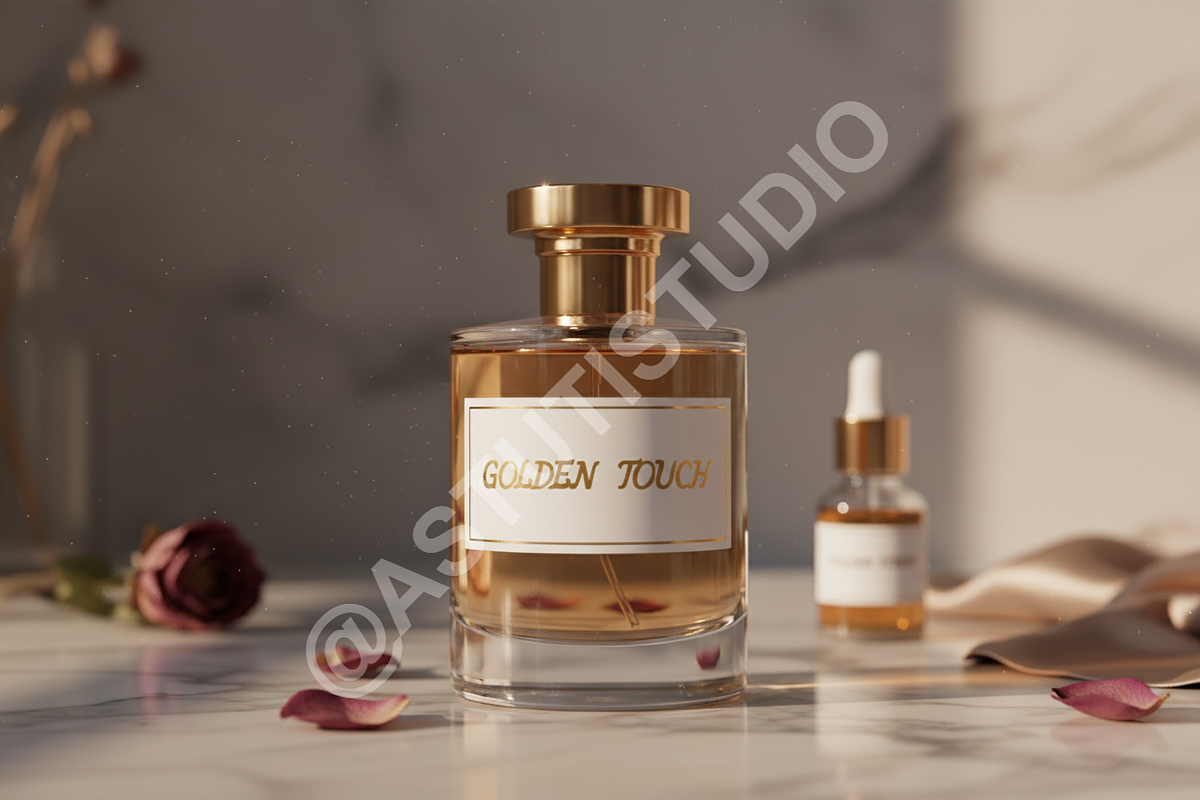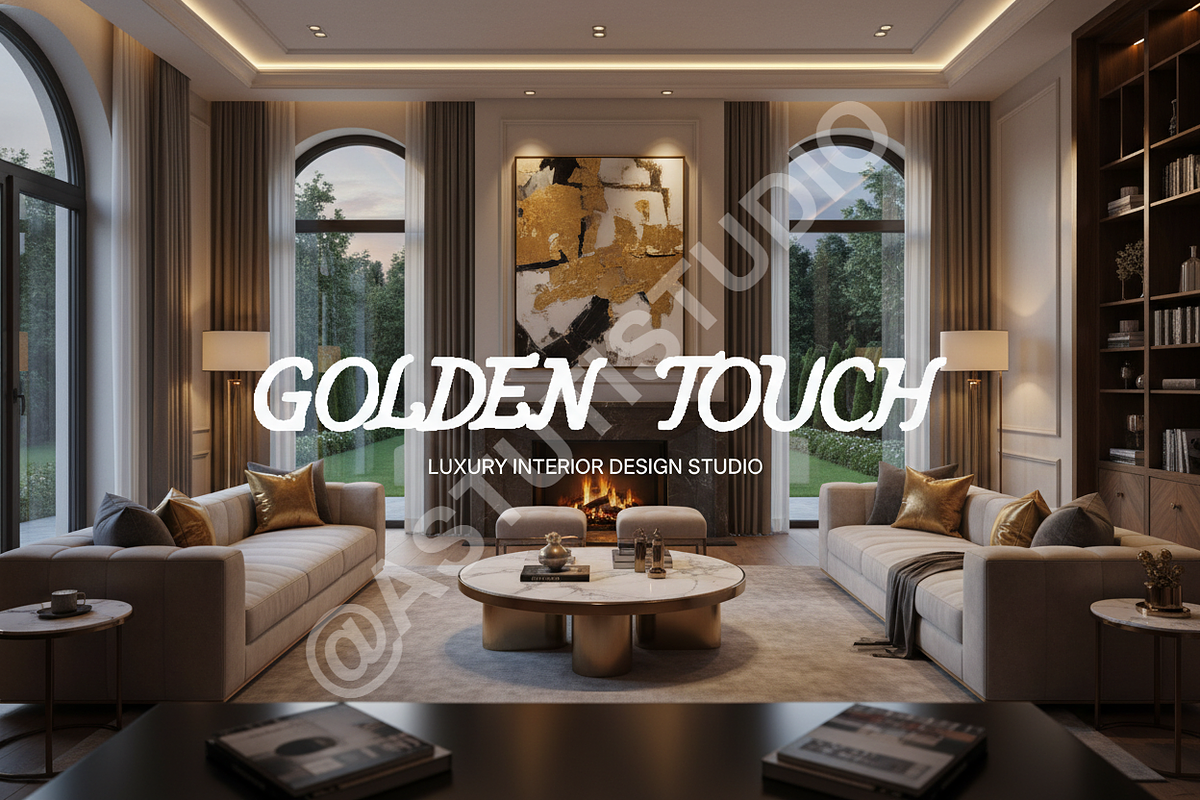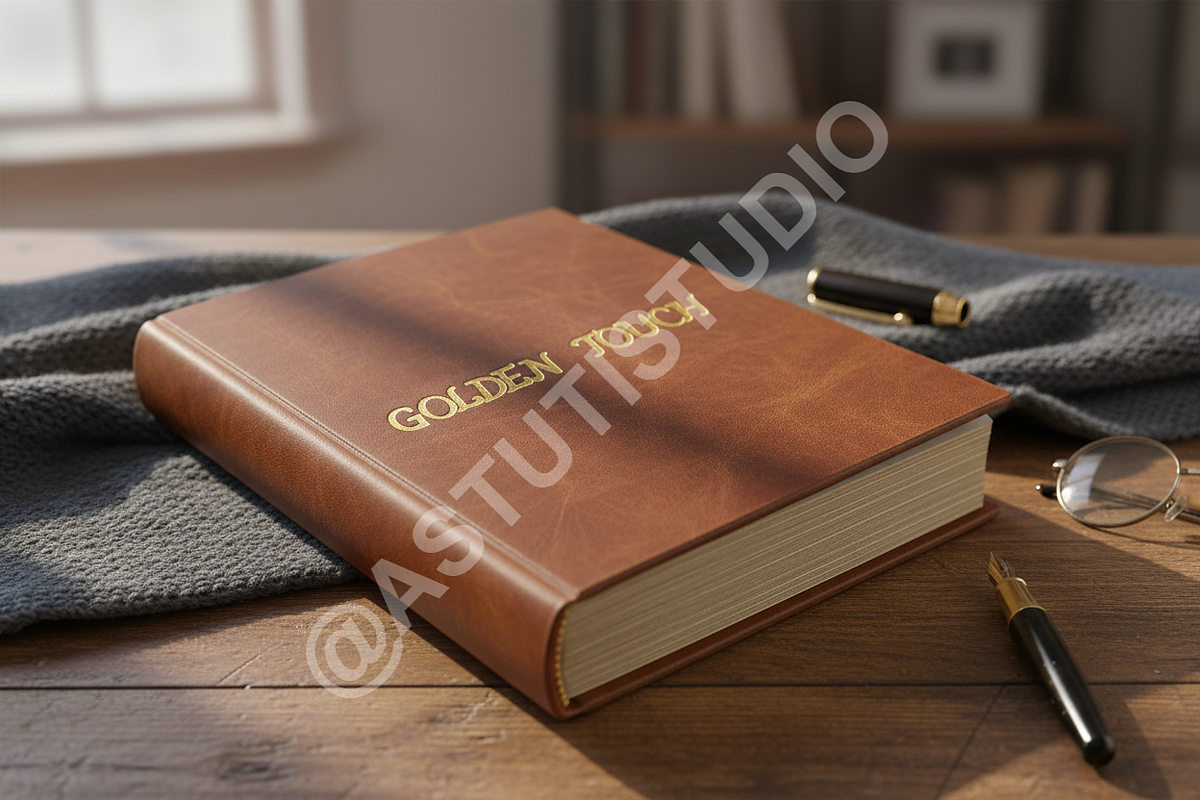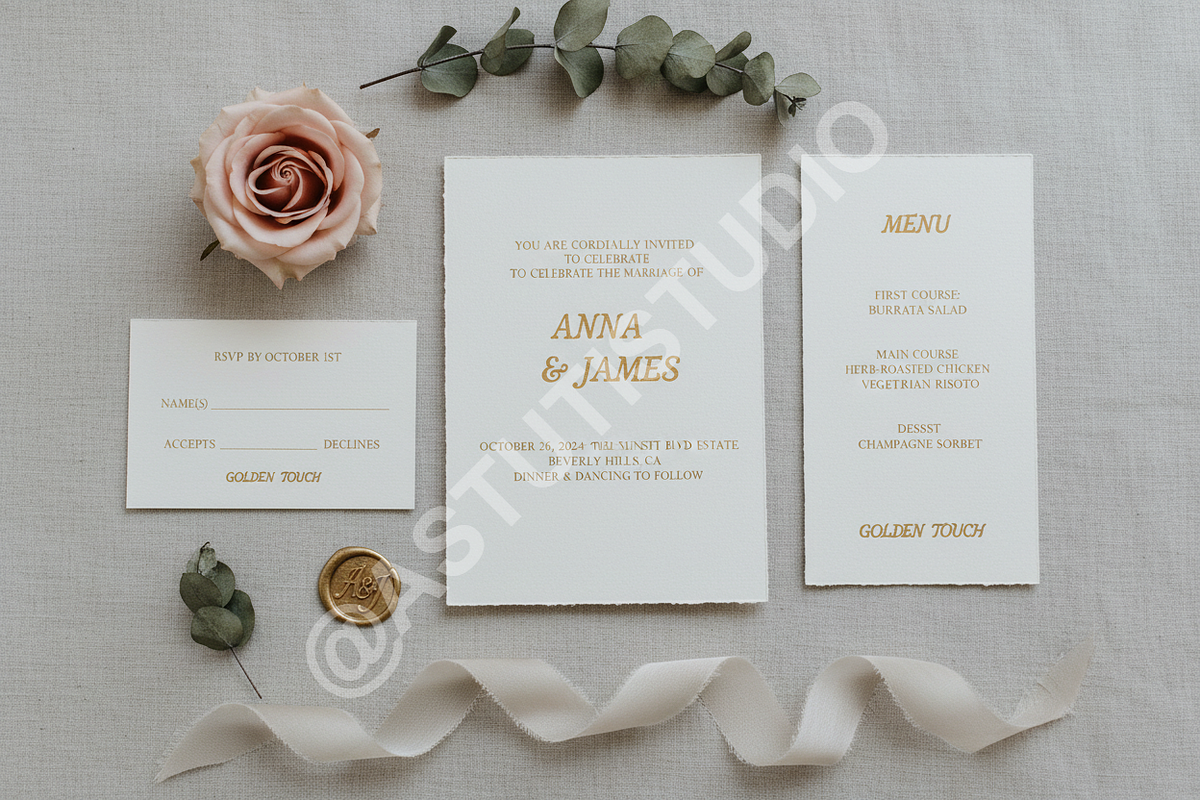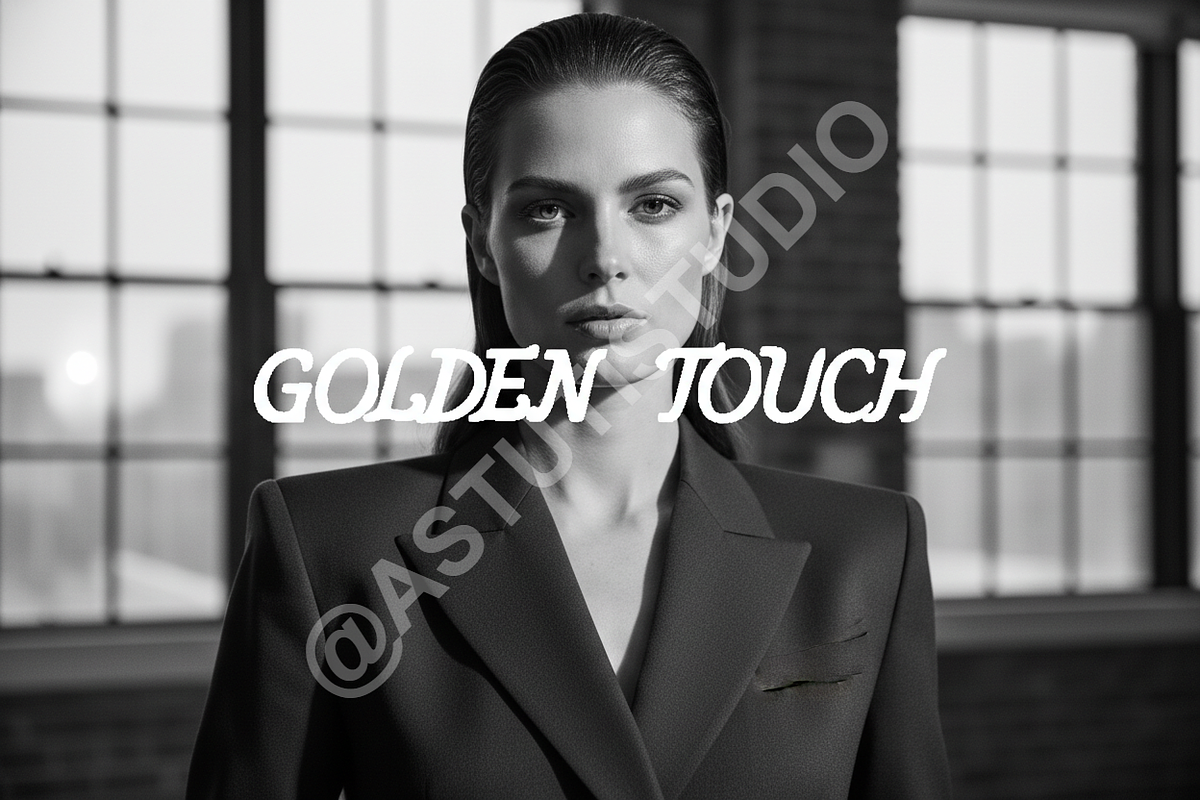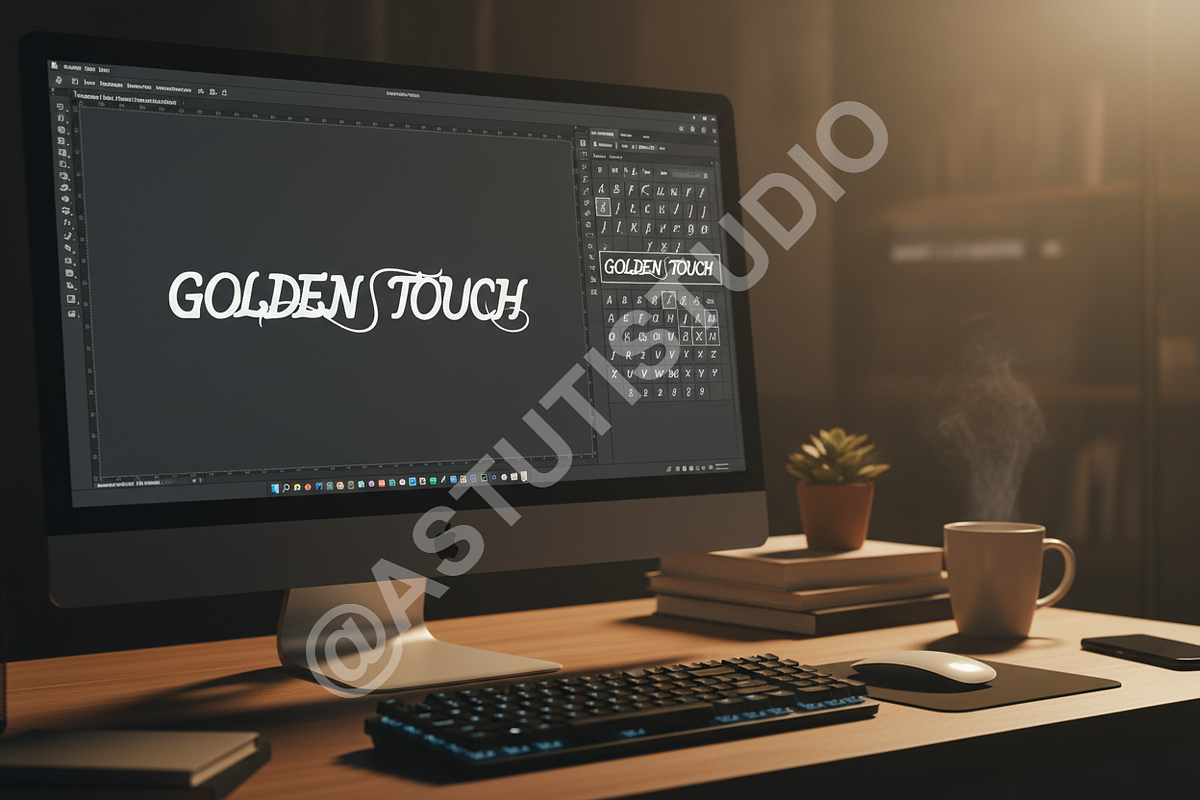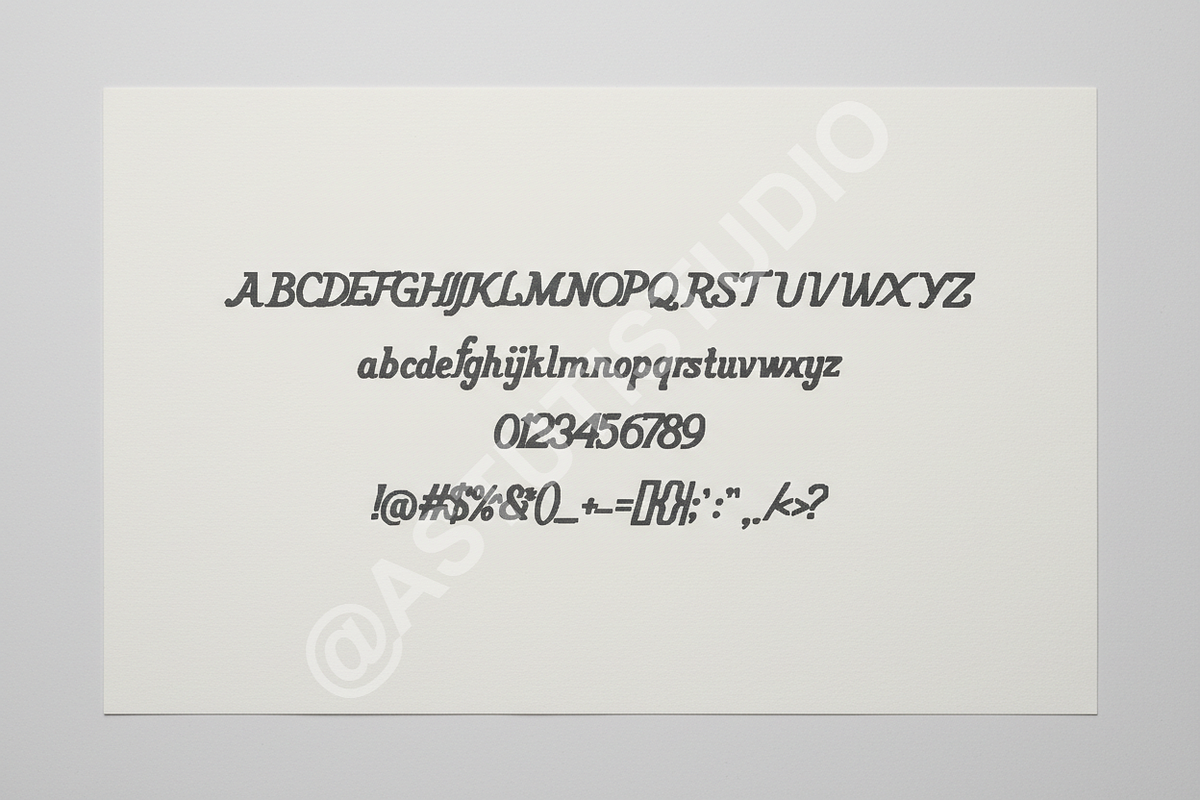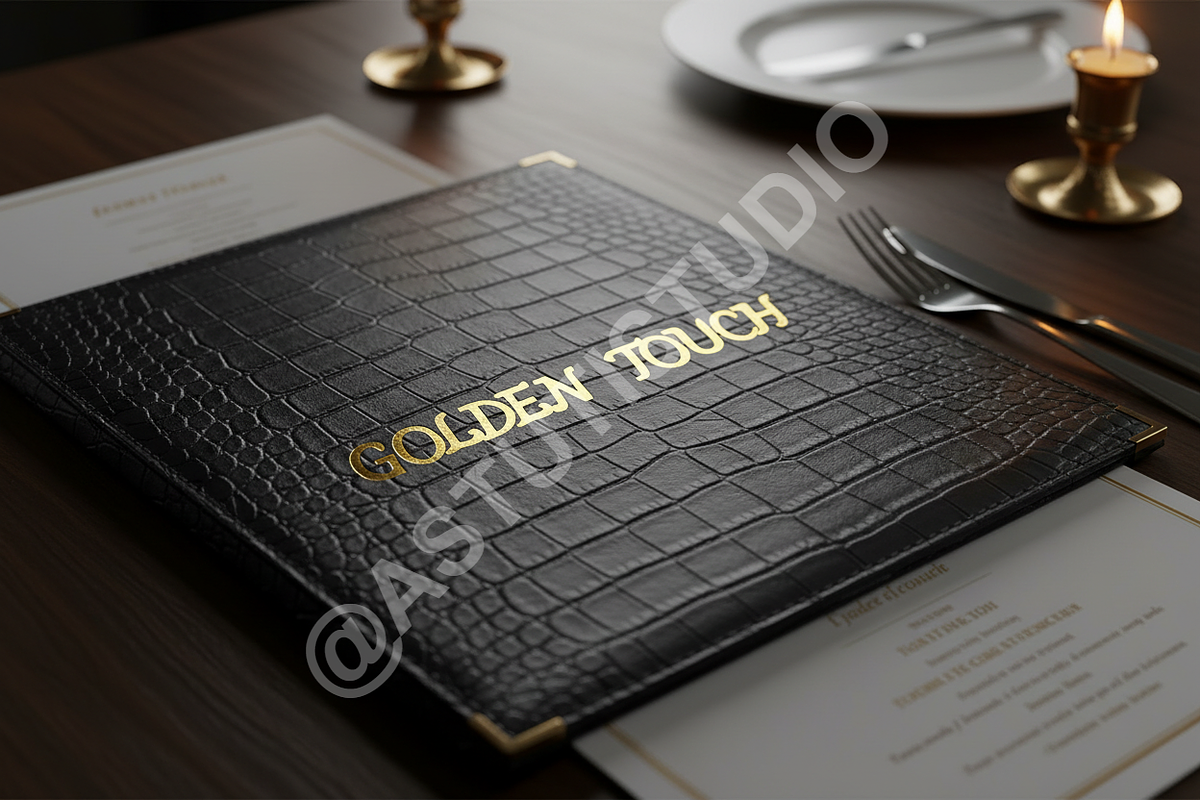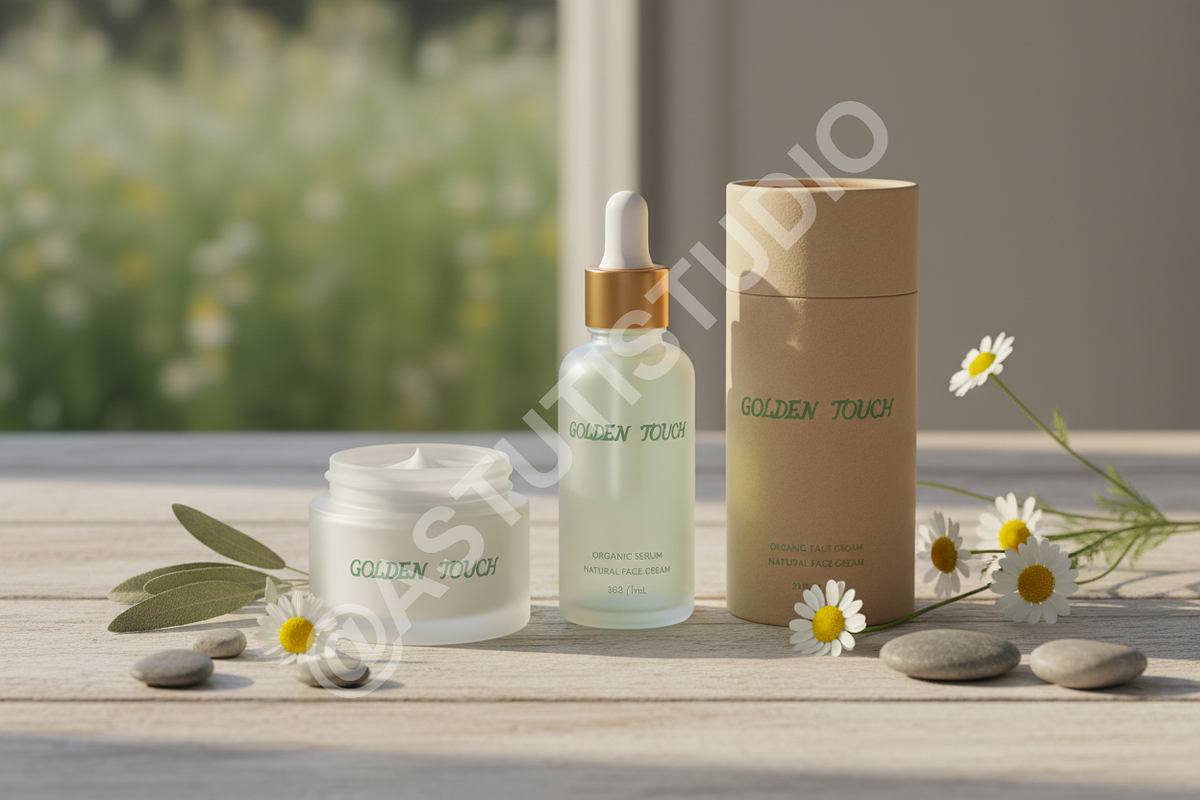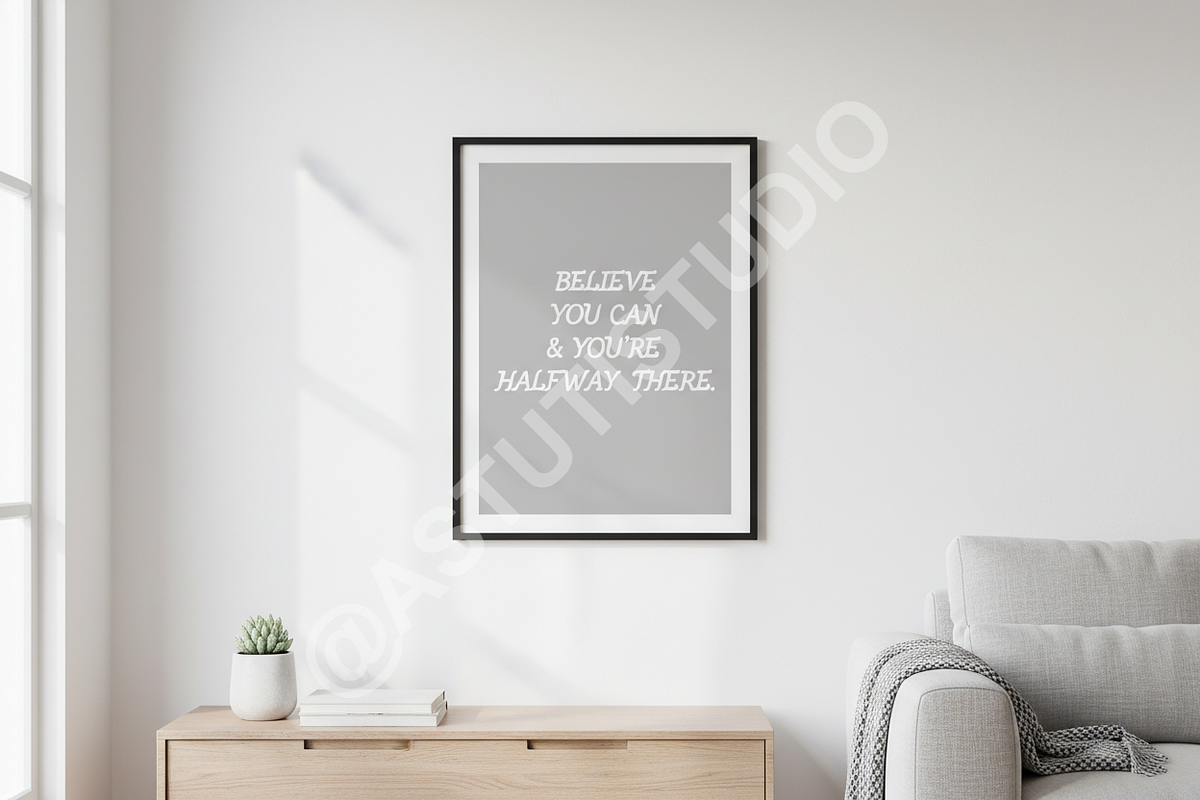
Guvase - Elegant Modern Serif Typefa
INTRODUCTION Guvase is a sophisticated serif font meticulously crafted for high-end aesthetics. Blending timeless elegance with contemporary sharpness, this typeface is designed to elevate luxury branding, high-fashion editorials, and premium social media content. Its refined silhouettes and balanced proportions provide a sense of exclusivity and grace to any creative project, making it a versatile choice for designers seeking a polished, professional look.
- Clean and minimalist serif design
- High-contrast strokes for a premium feel
- Unique character ligatures and stylistic alternates
- Full multilingual support and punctuation
- Precision kerning for professional typography
- Optimized for both large-scale print and digital displays